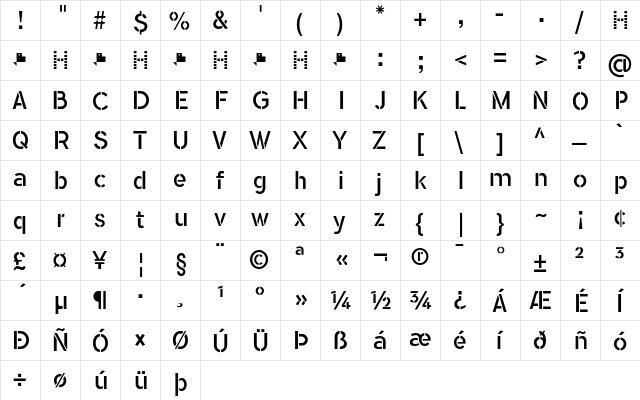
FLAMANTE STEN Book
| Foundry | deFharo |
| Designer | Fernando Haro |
Design Context for FLAMANTE STEN Typeface
FLAMANTE STEN is a composed and adaptable typeface that performs quietly and consistently across a wide range of design contexts.